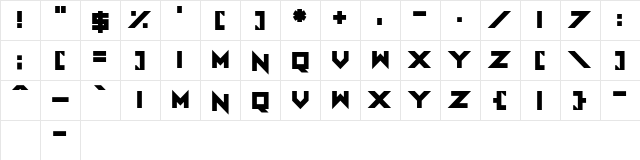
Complete I Am A Designer Regular glyph index. Displaying only characters natively supported by I Am A Designer Regular font.
I Am A Designer is a composed and adaptable typeface that performs quietly and consistently across a wide range of design contexts.